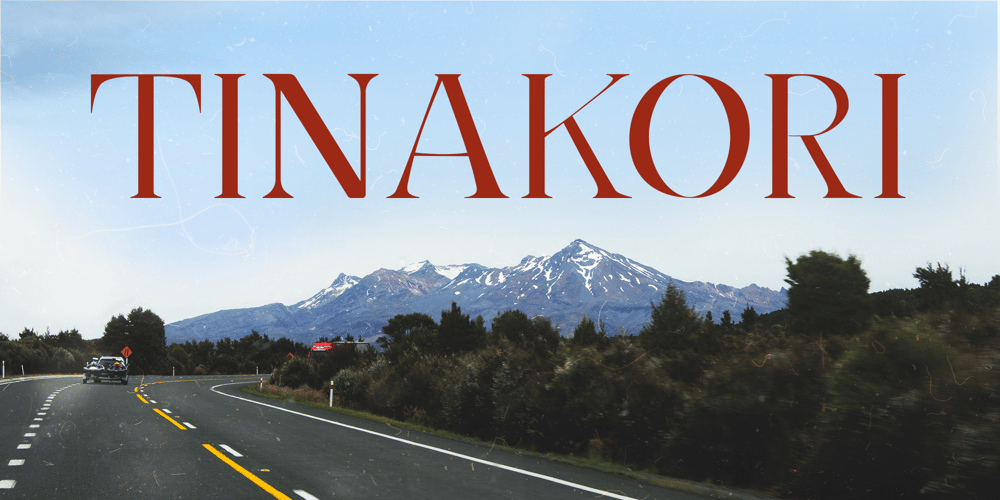
Tinakori Font Family was designed by Jordan Hendriks and published by Hendriks Studio. Tinakori contains 3 styles and family package options. Inspired by a bustling village within Aotearoa New Zealand’s capital city of Wellington, Tinakori is an elegant and sophisticated serif font that invokes art deco, classical art and thin balletic structures. It’s been a passion project that’s finally come to fruition. The simple italic and bold versions help accentuate the individuality of the serif which is precise but holds a fluidity that makes it feel inventive.